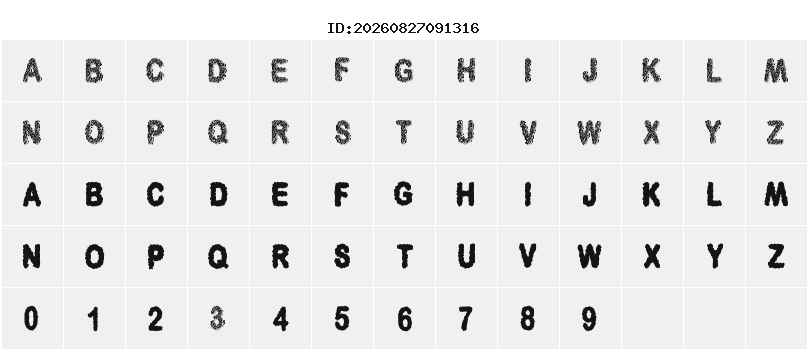
• Font Name: 3D Cubes Solid
• Designer: Vidkä
• Description: 3D Cubes Solid by Vidkä©
About 3D Cubes Solid.ttf
3D Cubes Solid.ttf is a modern, elegant sans-serif font designed for ultimate readability and visual harmony. Perfect for branding, headlines, web design, and print materials.